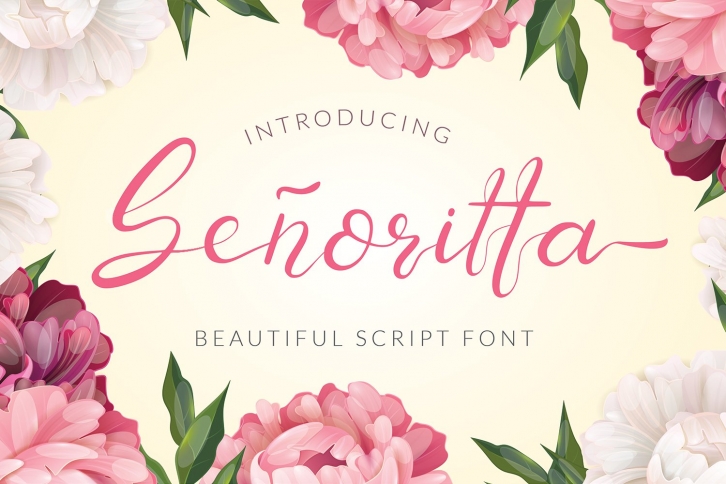
Senoritta is a beautiful script font, will be suitable for any projects such as logo’s, branding projects, homeware designs, product packaging, mugs, quotes, posters, shopping bags, t-shirts, book covers, name card, invitation cards, greeting cards, label, photography, watermark, special events, and all your other lovely projects that need beautiful handwriting taste.
- Upper Case & Lowercase
- Numerals
- Punctuations (OpenType Standard)
- Accents (Multilingual Characters)
- Ligatures and Alternative Style Stylistic Set